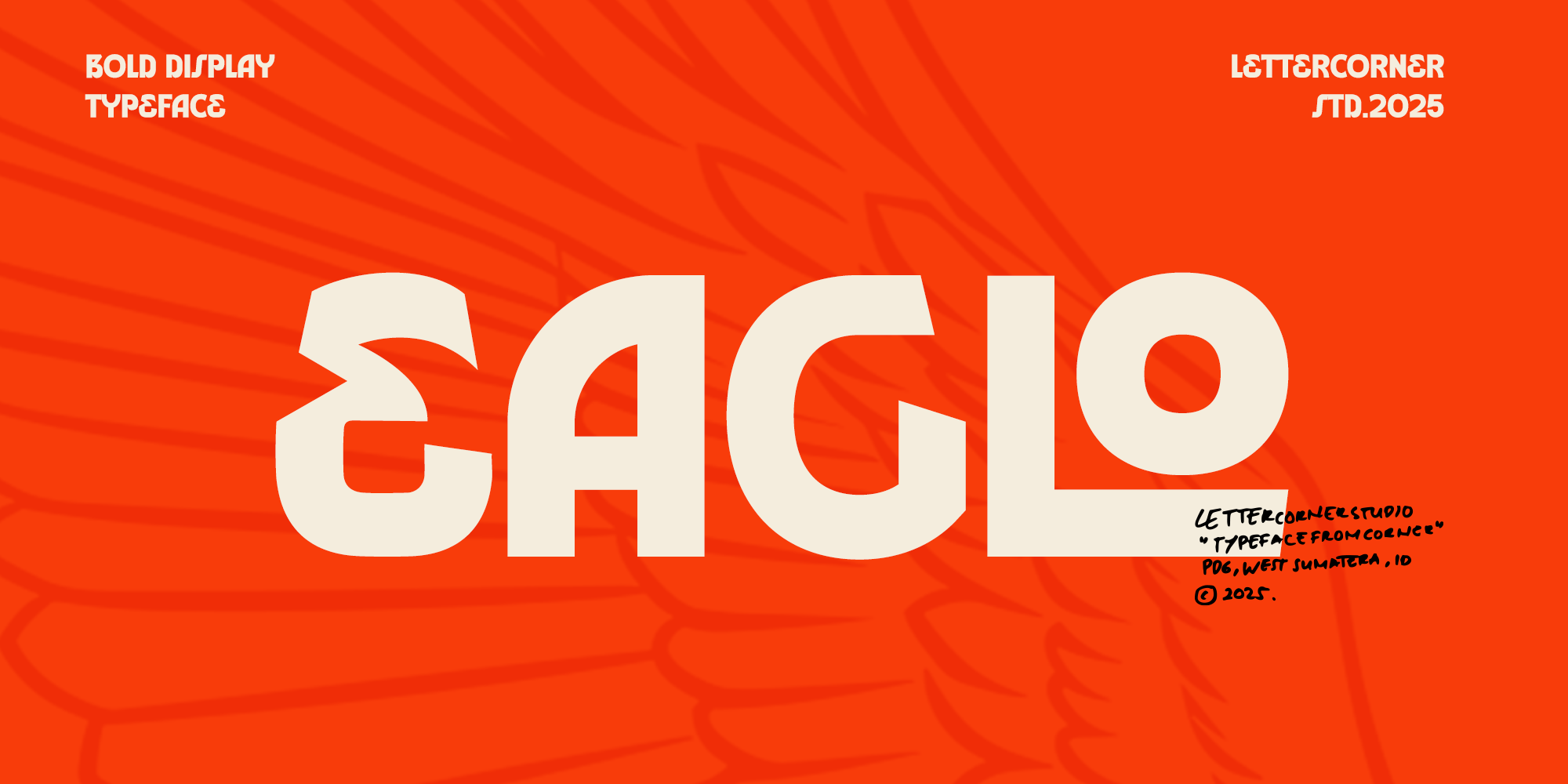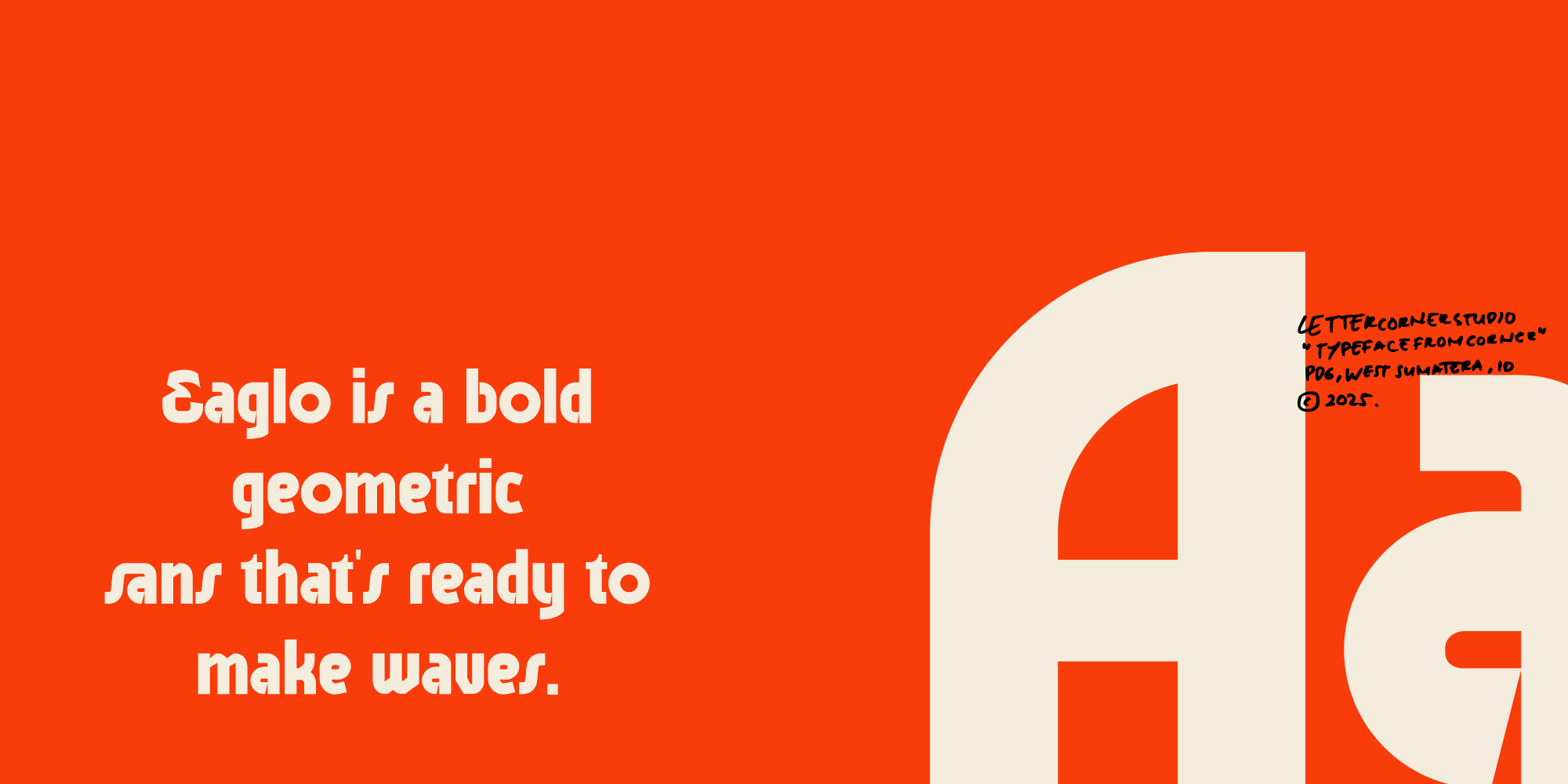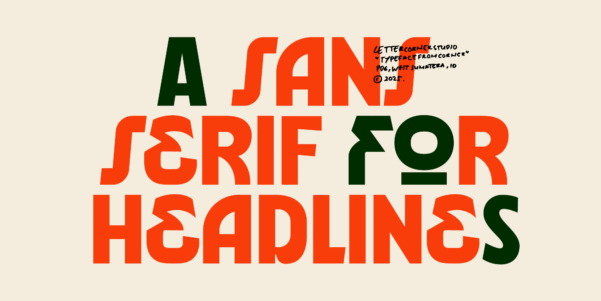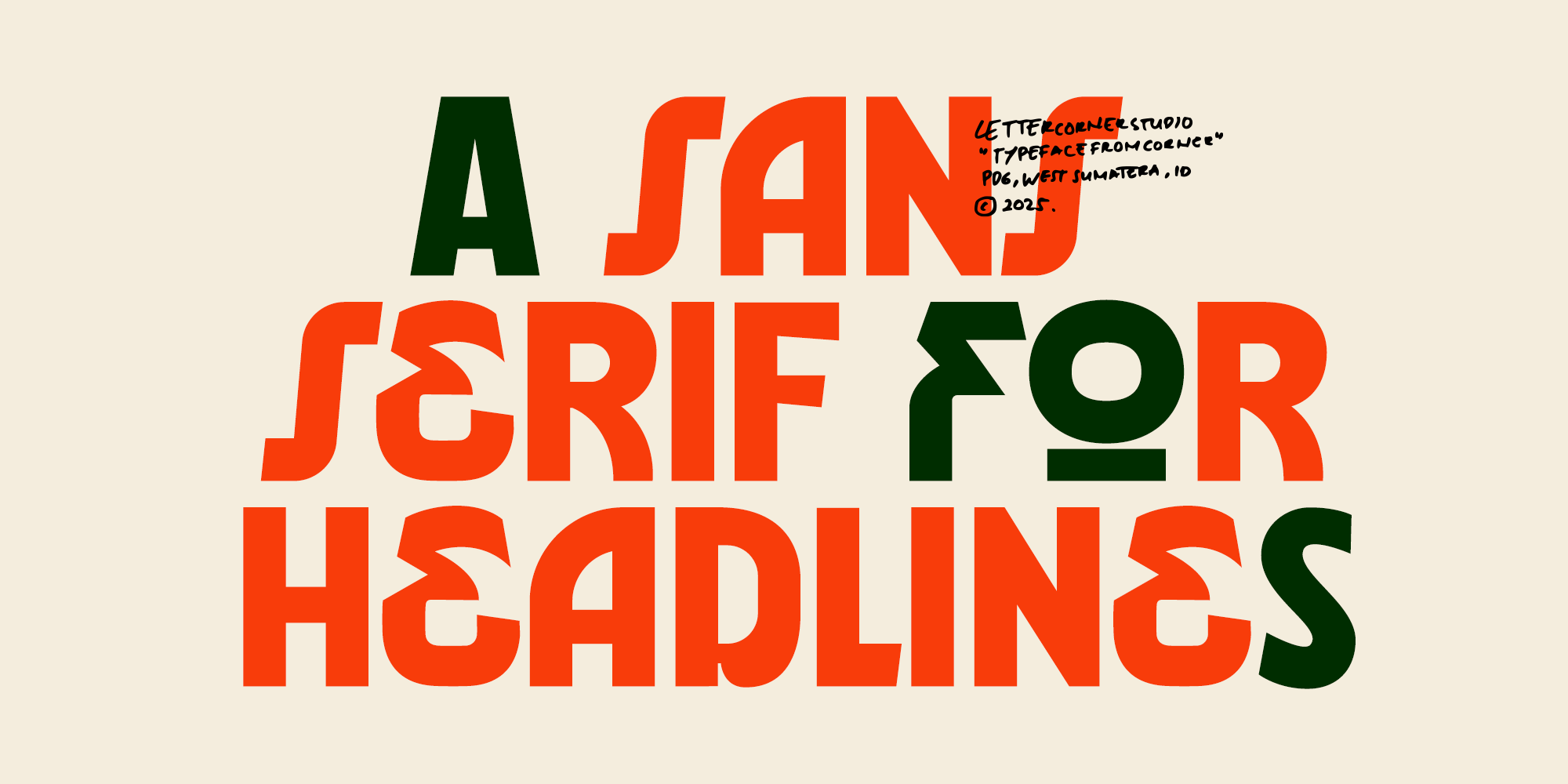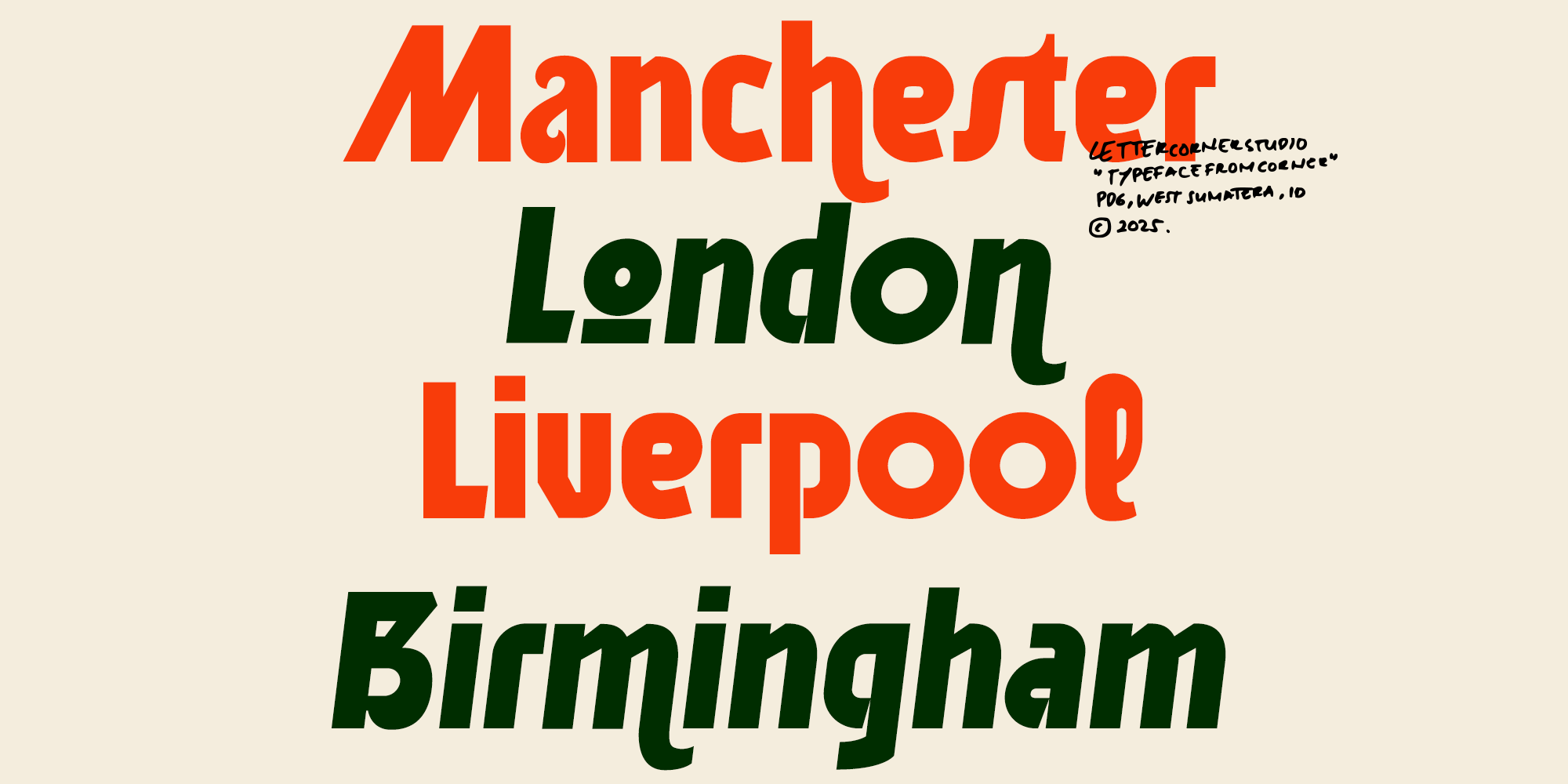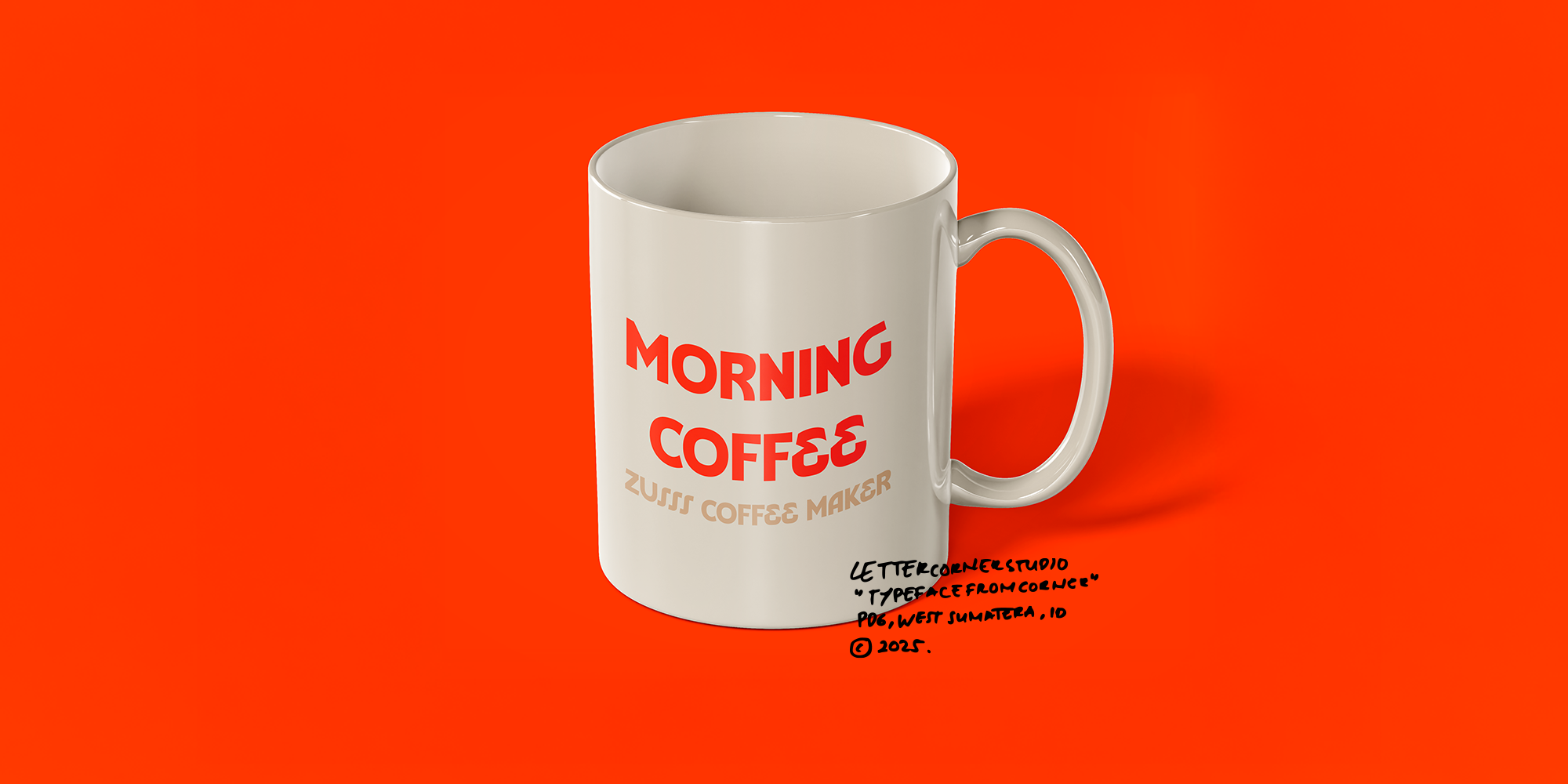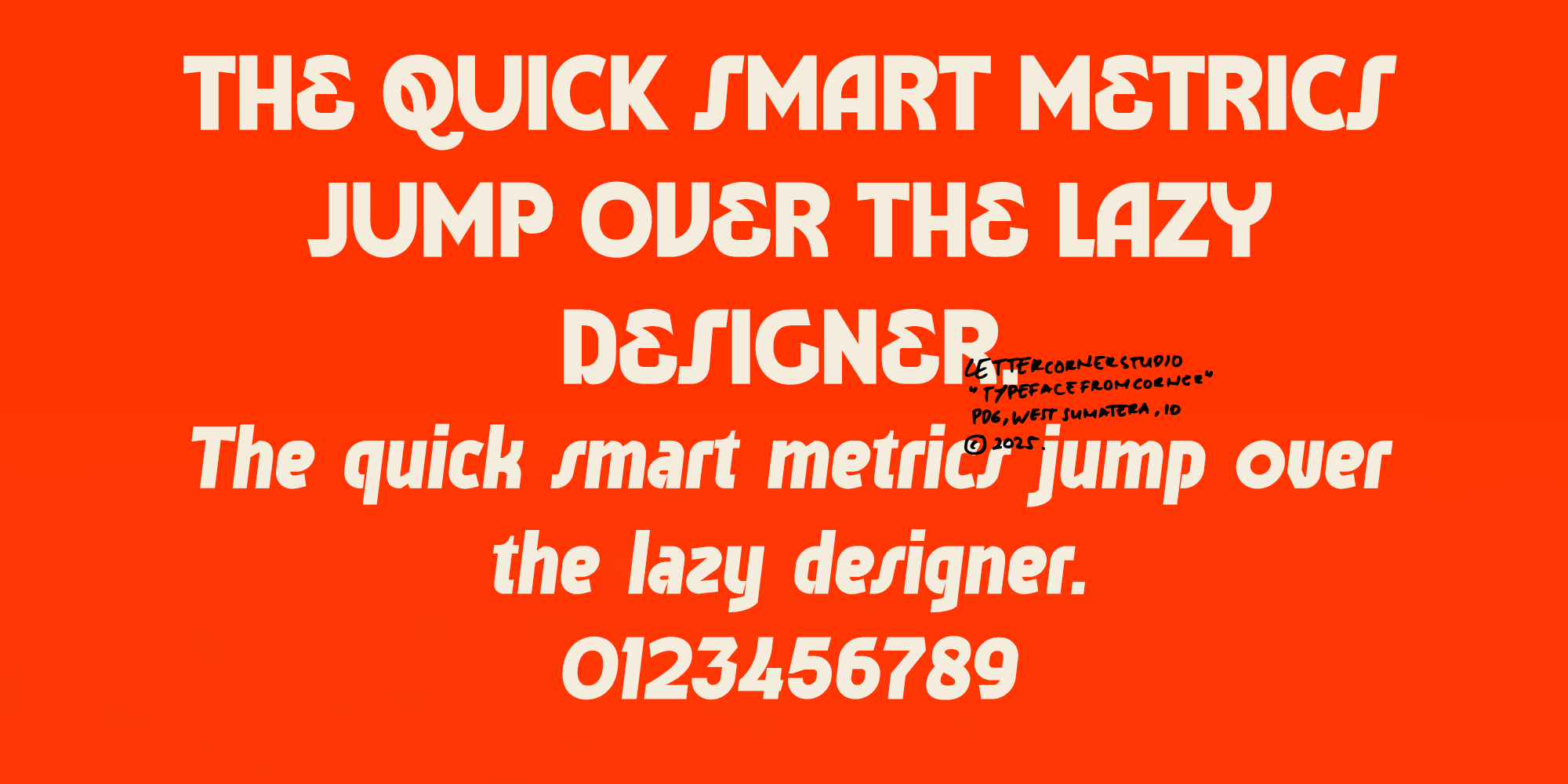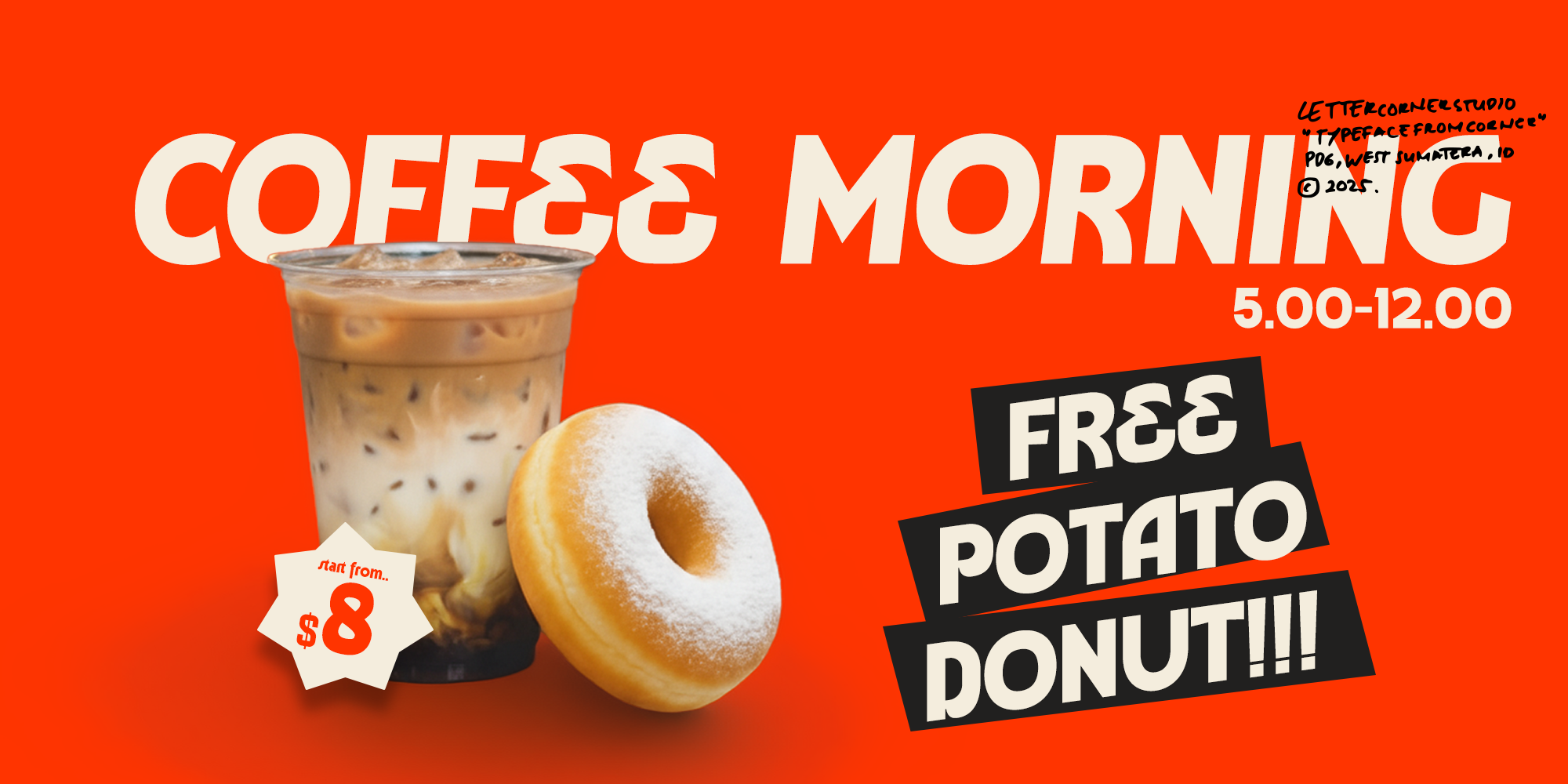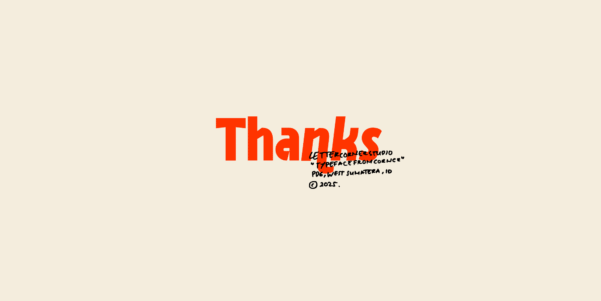
Eaglo is a bold sans serif typeface that soars with strength and precision. Built with clean geometry and confident proportions, it captures the sharp focus and modern spirit of its namesake — the eagle.
Its solid structure and balanced curves give Eaglo a distinctive personality: strong yet refined, modern yet timeless. Perfect for logos, headlines, posters, and tech-inspired branding, Eaglo delivers clarity and impact in every letterform.
Whether you’re crafting a sleek corporate identity or a bold editorial design, Eaglo ensures your message stands tall — powerful, precise, and unmistakably modern.